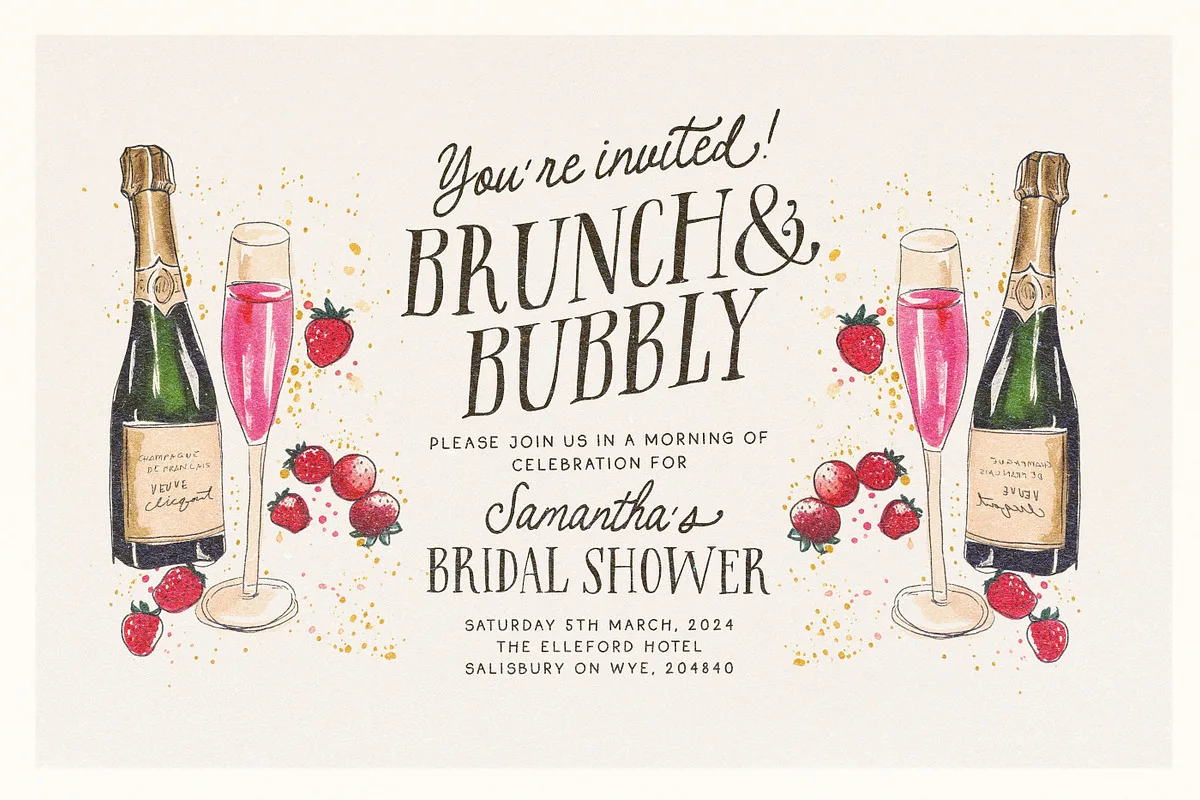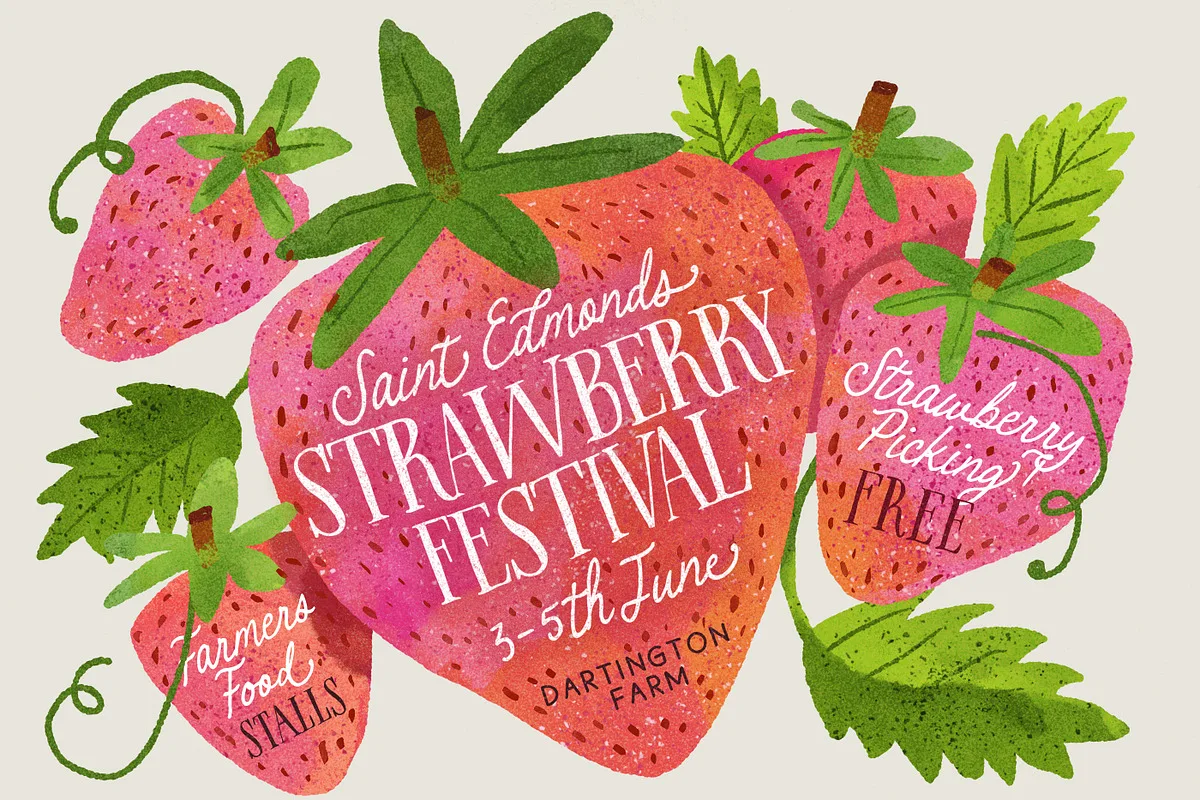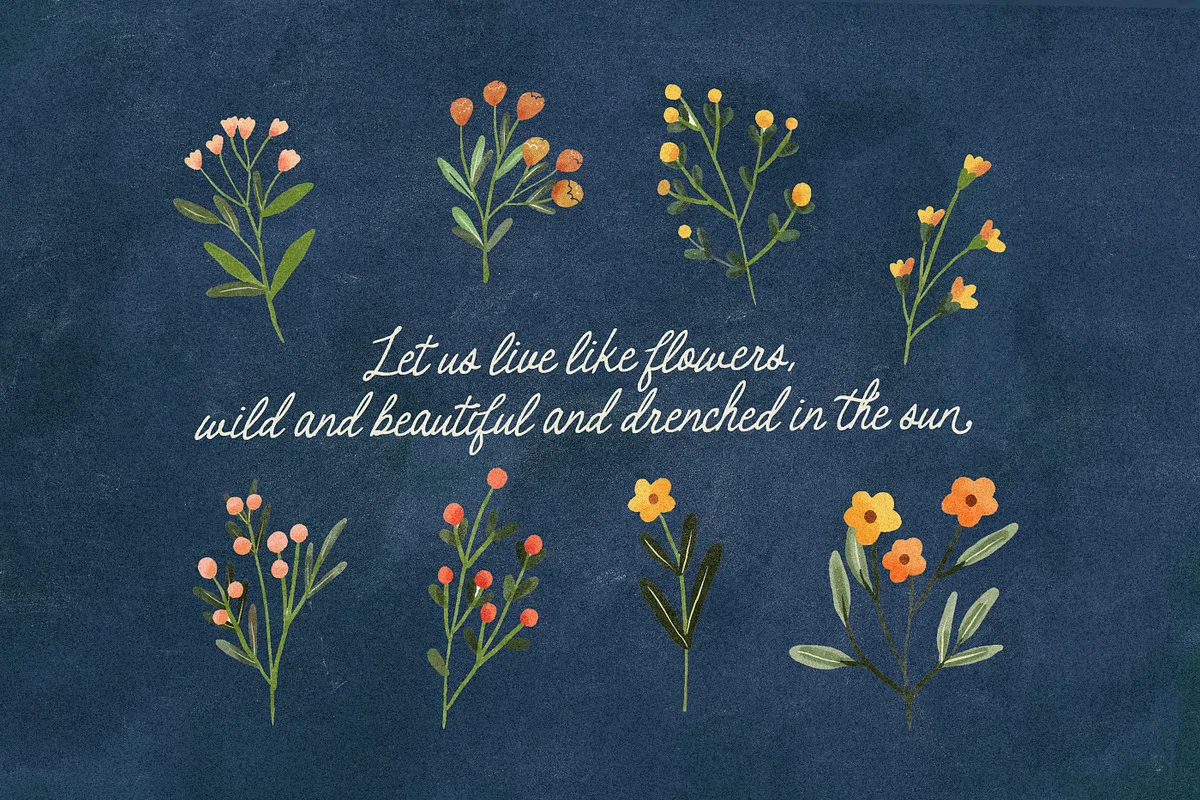
Say hello to The Bakersfield Font Trio! If you collect my handwritten packs, this one is another must for mixing and matching with your current packs 🙂 There are three fonts included in this typeface pack, one with a variant style, so 4 fonts in total.
Bakersfield Handwritten Serif Perfect for adding that touch of rustic and whimsical:) This font has differing upper and lowercase all caps letters.
Bakersfield Handwritten Script – if she looks familiar, it’s because she’s a close cousin of the inky edged Neptune Rising Script, but with some tweaking to give her a slightly different personality 🙂 NOTE : To access the sweet little alternate letters and ligatures as seen in the previews, you will need to be using design software that supports Opentype Features such as Photoshop/Illustrator etc.
Bakersfield Sans – a playful little rough and rustic sans serif, for all the details and fine print 🙂